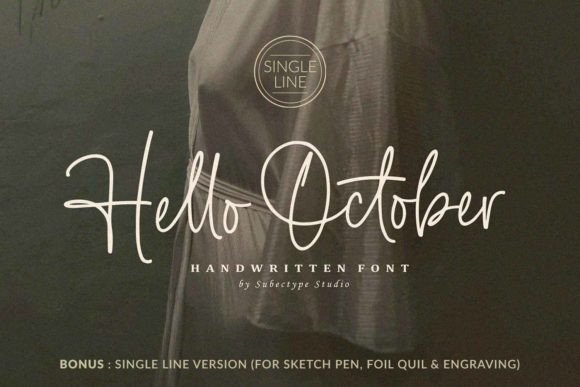
Welcome to the world of Hello October, the perfect script font to elevate your designs and bring your creative ideas to life! Created by Subectype, this font is one of the best fonts for CNC engraving, making it the perfect addition to your collection.
Hello October is an authentic handwritten font that exudes romance and elegance, making it the perfect choice for those who want to add a personal touch to their projects. With its unique and eye-catching design, this font is sure to make your work stand out from the crowd.
Whether you're a designer, a blogger, or a business owner, Hello October is the perfect font for all your needs. Its versatility and adaptability make it suitable for a wide range of applications, from wedding invitations to branding and packaging.
But Hello October isn't just another font. It's a font that has been masterfully designed to become a true favorite. Its fluid and natural strokes give your work a personal touch, while its romantic undertones add a touch of elegance to your designs.